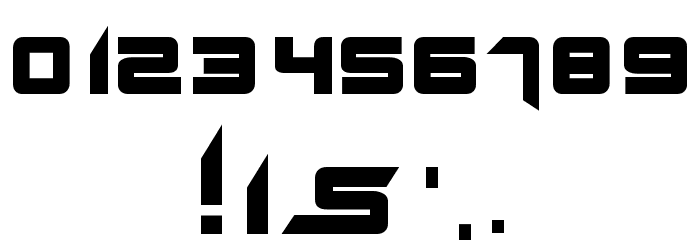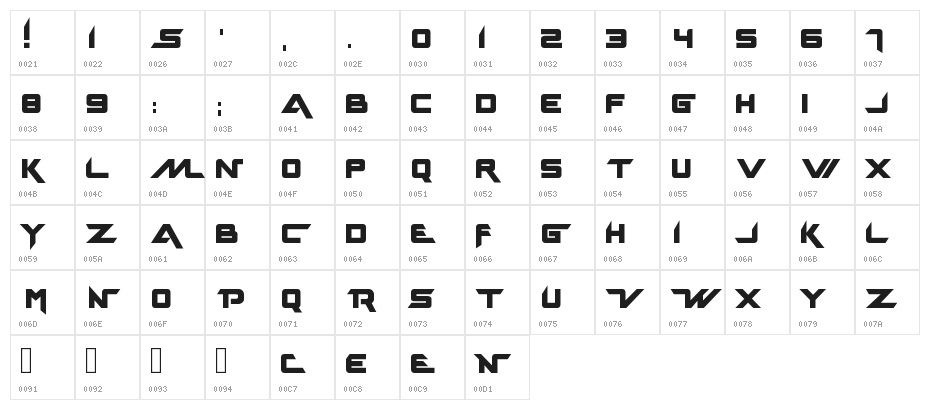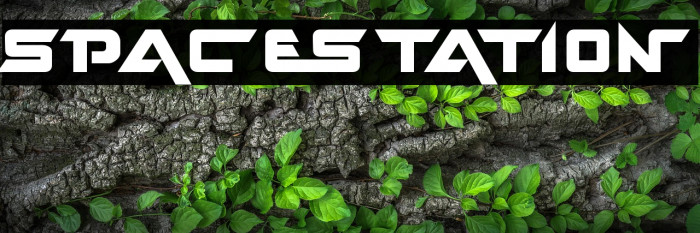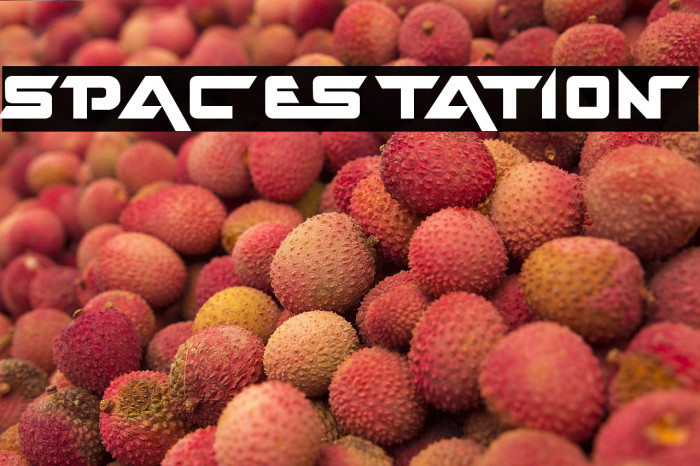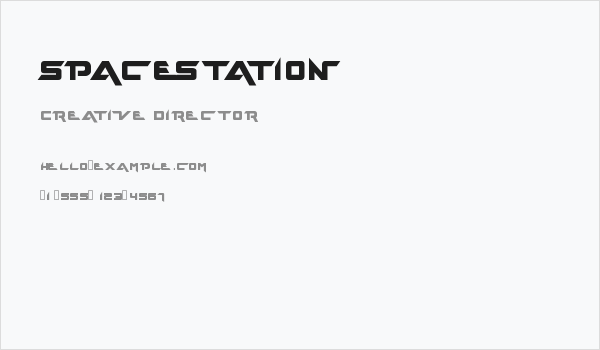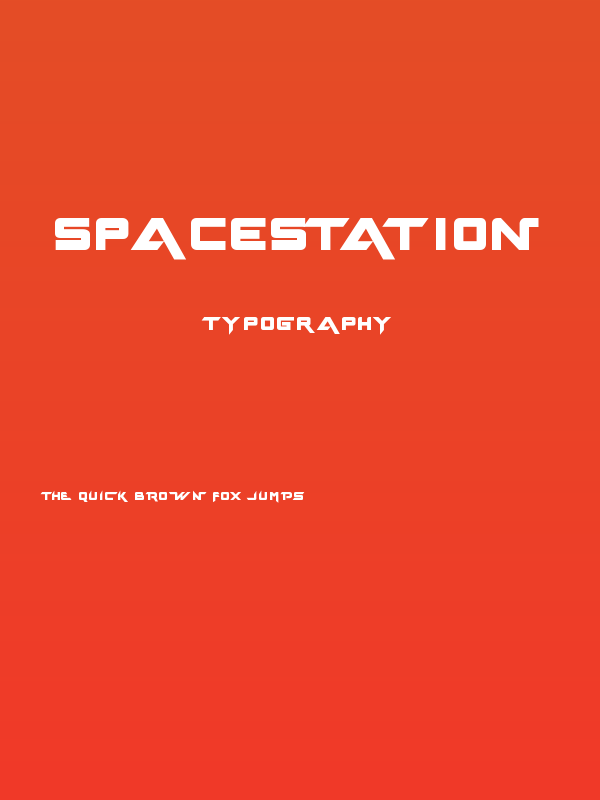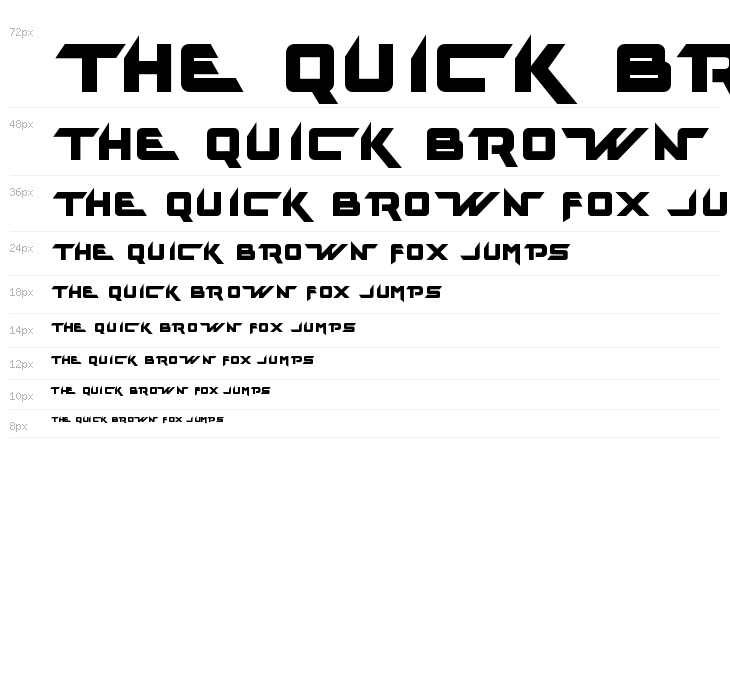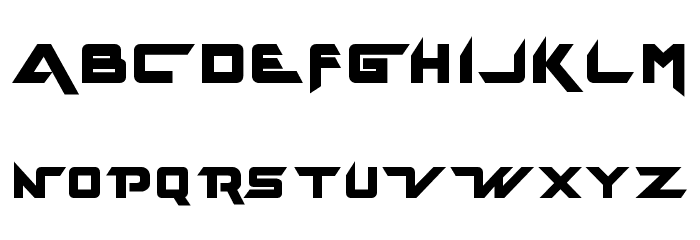
spacestation Font
spacestation Description
This font features a futuristic and angular design, characterized by sharp edges and geometric shapes. The uppercase and lowercase letters maintain a consistent style, with a bold and impactful appearance. The numbers and special characters follow the same design principles, ensuring a cohesive look across all elements. The font's unique style is reminiscent of science fiction themes, making it suitable for projects that require a modern and cutting-edge aesthetic.